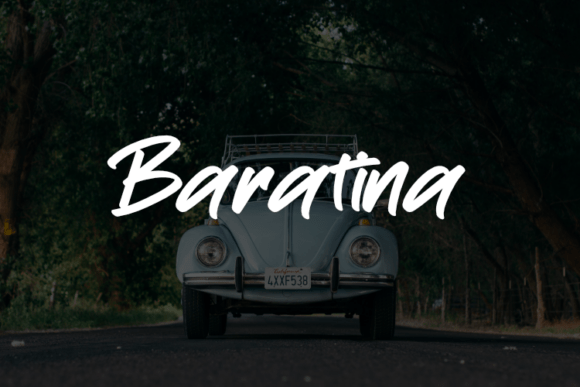
Discover Your Next Design Partner: Introducing Baratina Font
Do you remember that moment when you see a design and instantly know you have to recreate it? For designers, this feeling is a constant companion, driving us to push creative boundaries and experiment with new ideas. Today, we’re excited to share a game-changing addition to your design toolkit: the Baratina Font.
This versatile font is designed to seamlessly integrate into any project, whether you’re working on clothing designs, t-shirt prints, or product aesthetics. With its compatibility across all software and intricate design, Baratina Font is an all-around champion that will elevate your designs to new heights. Its convenient OTF file format makes it easy to use, and its perfect blend of functionality and style makes it an indispensable addition to any designer’s toolkit.
- Unique Characteristics: Baratina Font features a unique blend of modern and vintage elements, with intricate details and ornaments that add a touch of elegance and sophistication to any design.
Designer Review: Baratina Font
Overall, I’d say Baratina Font is a unique and elegant addition to any design project. ✨ Its distinctive, hand-drawn feel immediately captures attention and adds a touch of sophistication. The font’s versatility makes it suitable for various applications, from branding and advertising to editorial and creative content.
One of the standout features of Baratina Font is its excellent legibility. The font’s design ensures that text remains clear and easy to read, even at smaller font sizes. This makes it an excellent choice for projects where readability is crucial.
- Unique, hand-drawn design ✨
- Excellent legibility
- Highly versatile
- Suitable for various design applications
- May not be suitable for projects requiring a more modern or minimalist aesthetic ⚠️
- Some characters may appear slightly uneven or inconsistent
- May require additional styling or adjustments to achieve the desired look
Overall, Baratina Font is a solid choice for designers seeking a distinctive, elegant font. While it may have some limitations, its unique design and excellent legibility make it a valuable addition to any design project.
Baratina Font is a beautiful, elegant script font that is perfect for:
- Editorial and magazine design
- Stationery and greeting cards